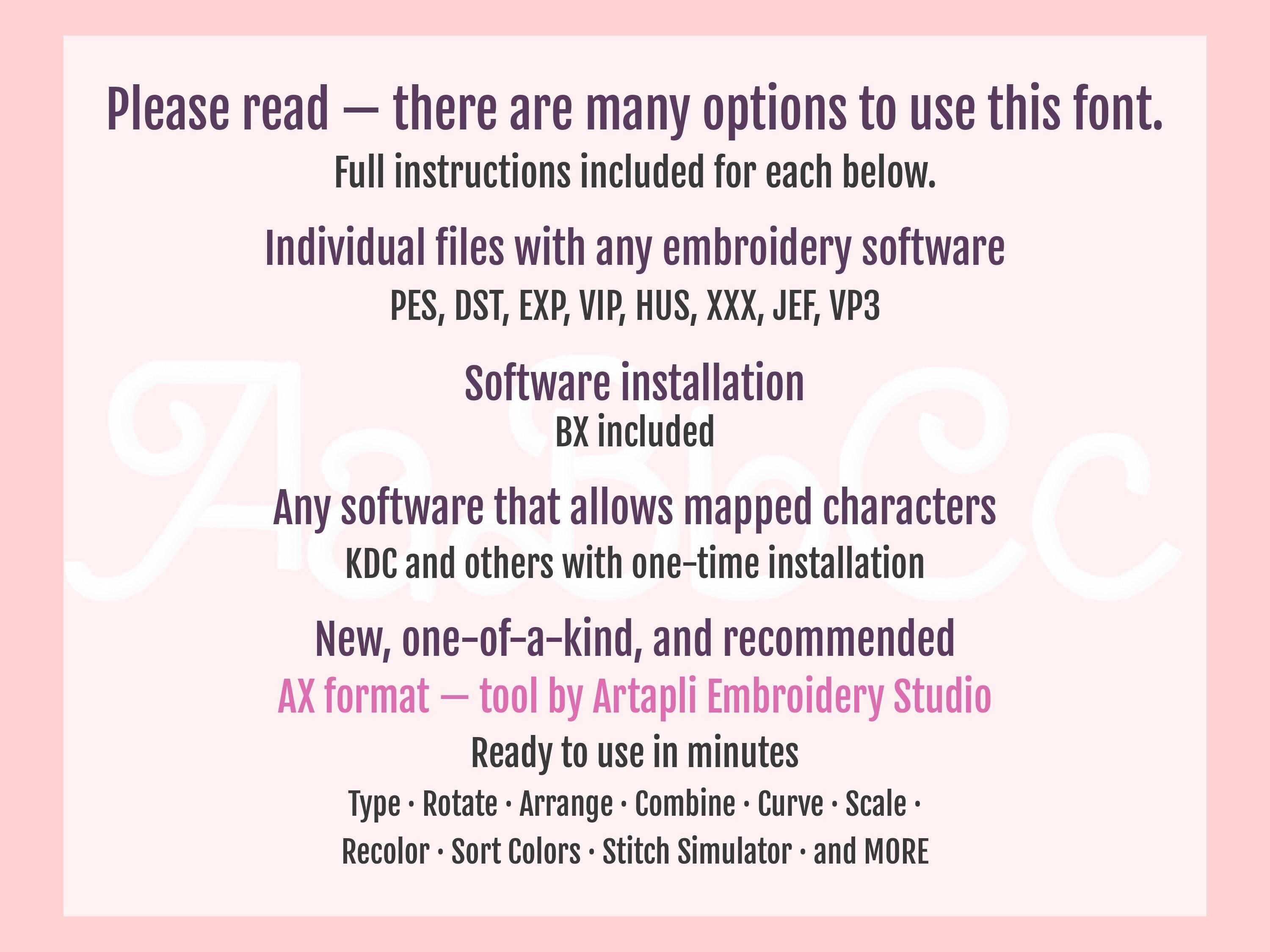
Retro Valentine Satin stitch Line FONT machine embroidery designs mini 0.6 up 3 in handwritten swirl curl alphabet letters monogram font BX
Whole alphabet: uppercase and lowercase letters